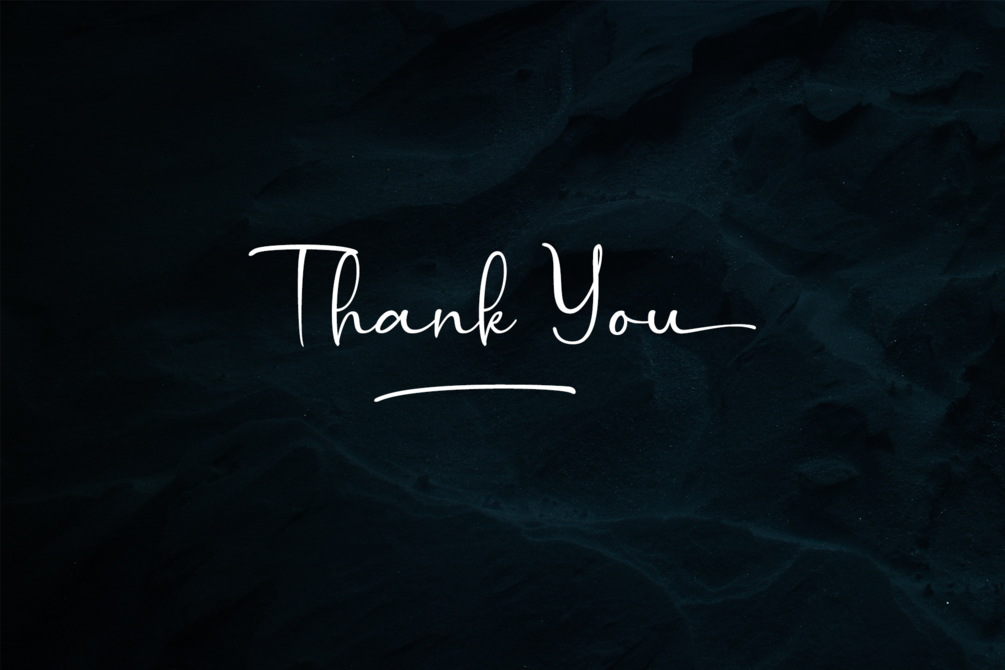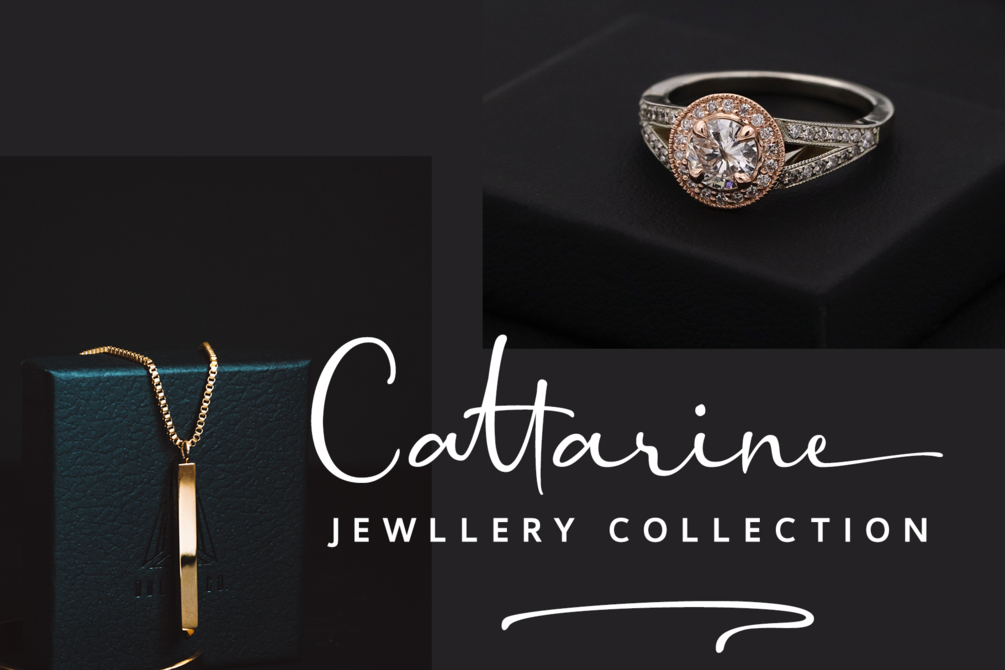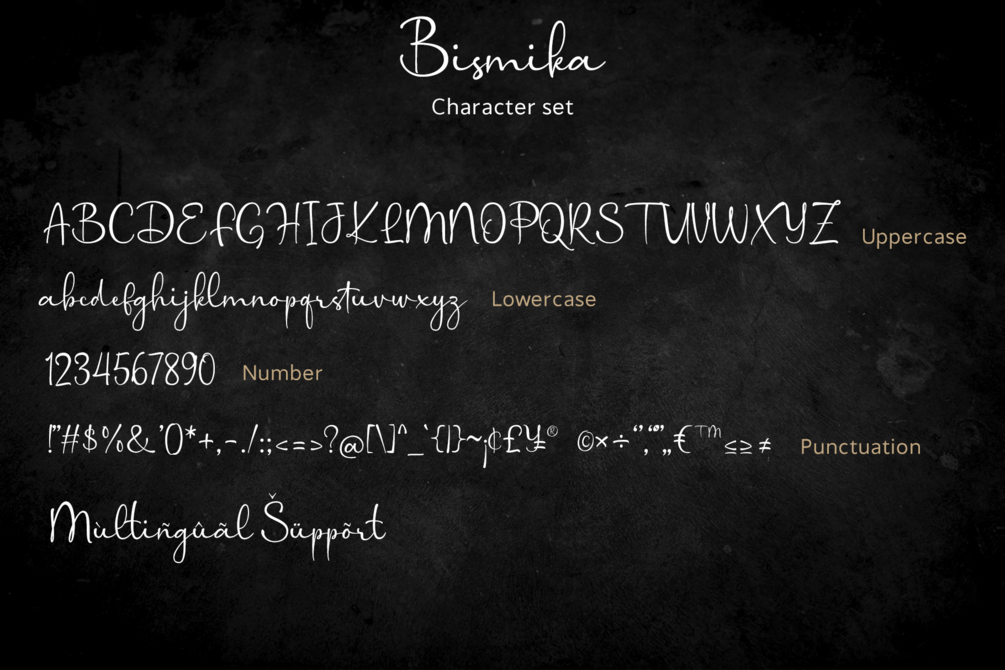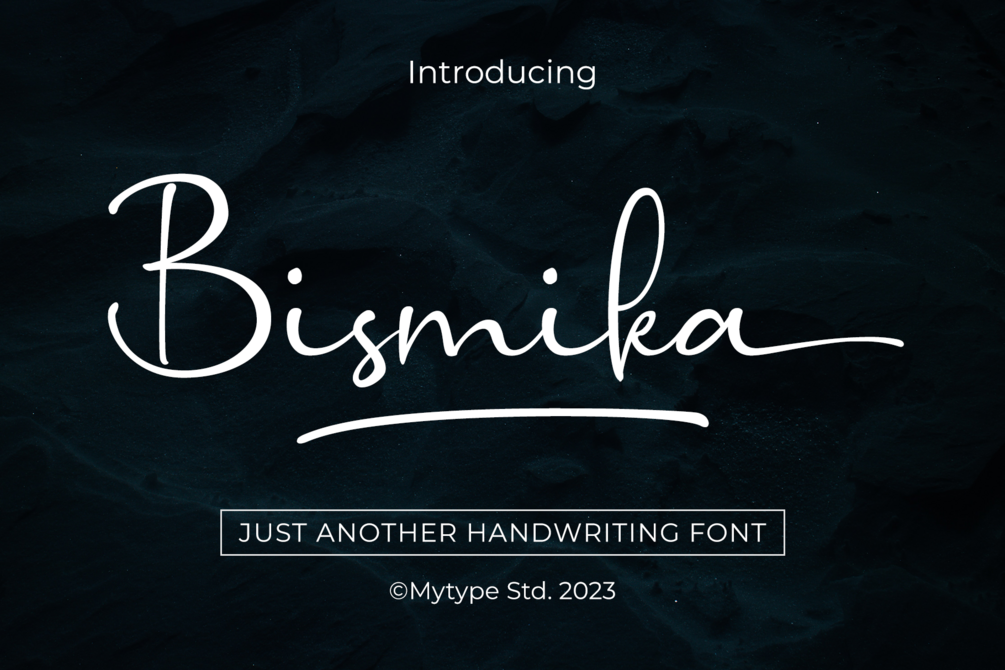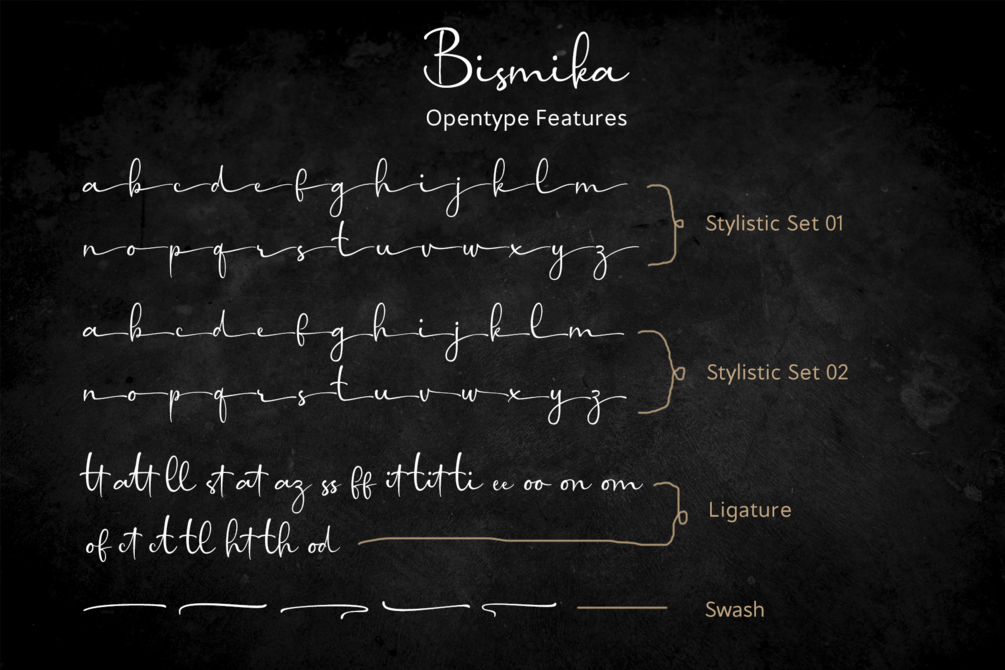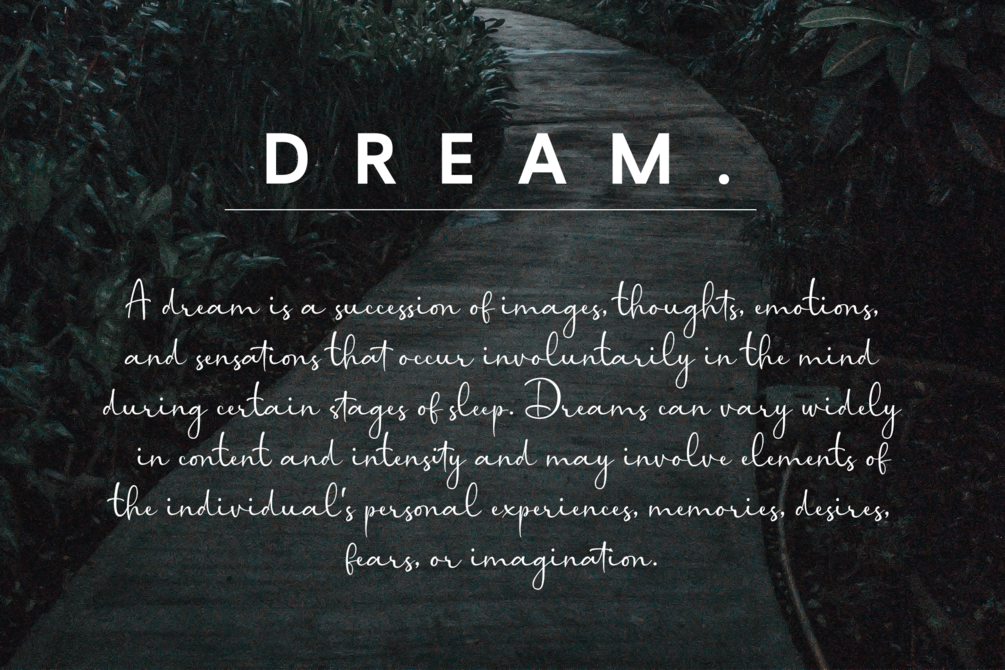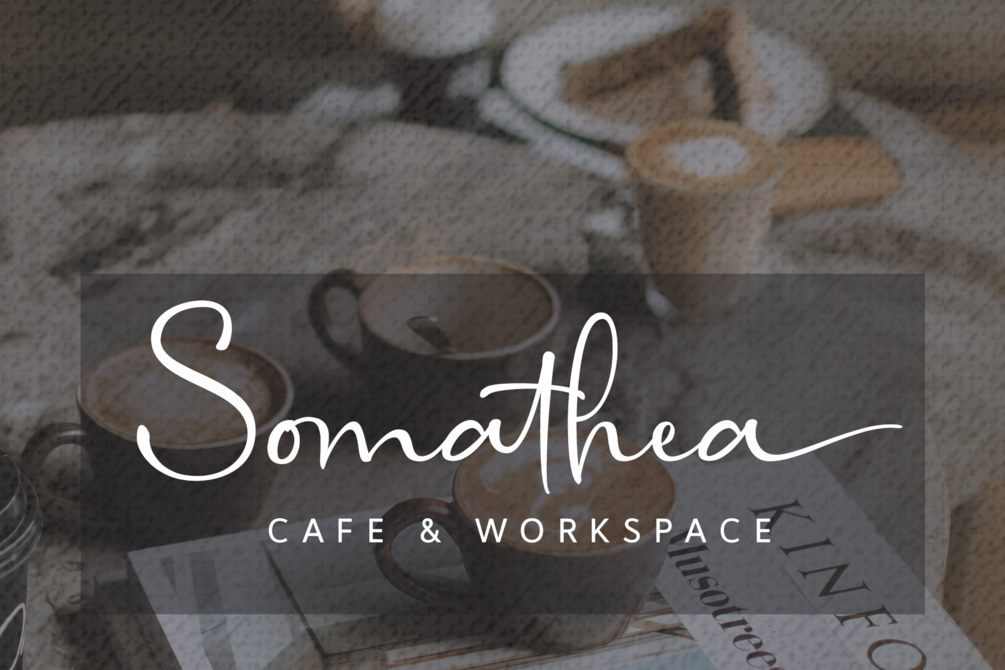
Bismika - Handwriting Font
Introducing Bismika: Where Script Elegance Meets Handwritten Charm
Transform your digital projects with the timeless elegance and personal touch of Bismika. Crafted with precision and a passion for artistry, our font bridges the gap between classic script sophistication and the warmth of genuine handwriting. Whether you're designing invitations, creating logos, or adding a unique flair to your social media posts, Bismika is your go-to choice.
Why Choose Bismika?
Authentic Handwritten Feel: Every letter is meticulously designed to mimic the natural flow and texture of handwriting, giving your work an authentic, personal touch.
Elegant Script Style: The graceful curves and refined strokes of a traditional script font combine seamlessly with the organic, human element of handwritten text.
Versatile Usage: Perfect for a wide range of projects, from wedding invitations and greeting cards to branding materials and digital content.
Bring Your Creations to Life
Unlock the potential of your designs with Bismika. Embrace the beauty of script elegance and the charm of handwritten text, and watch your projects come alive with personality and style.